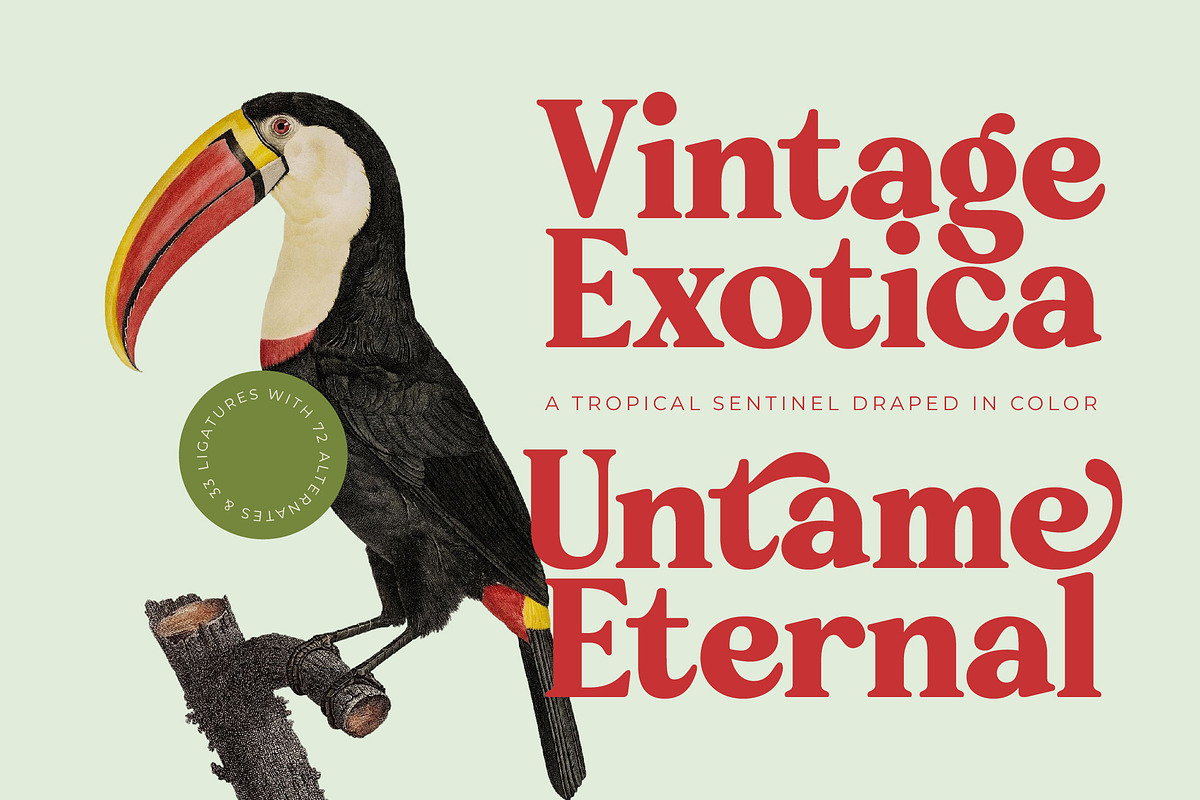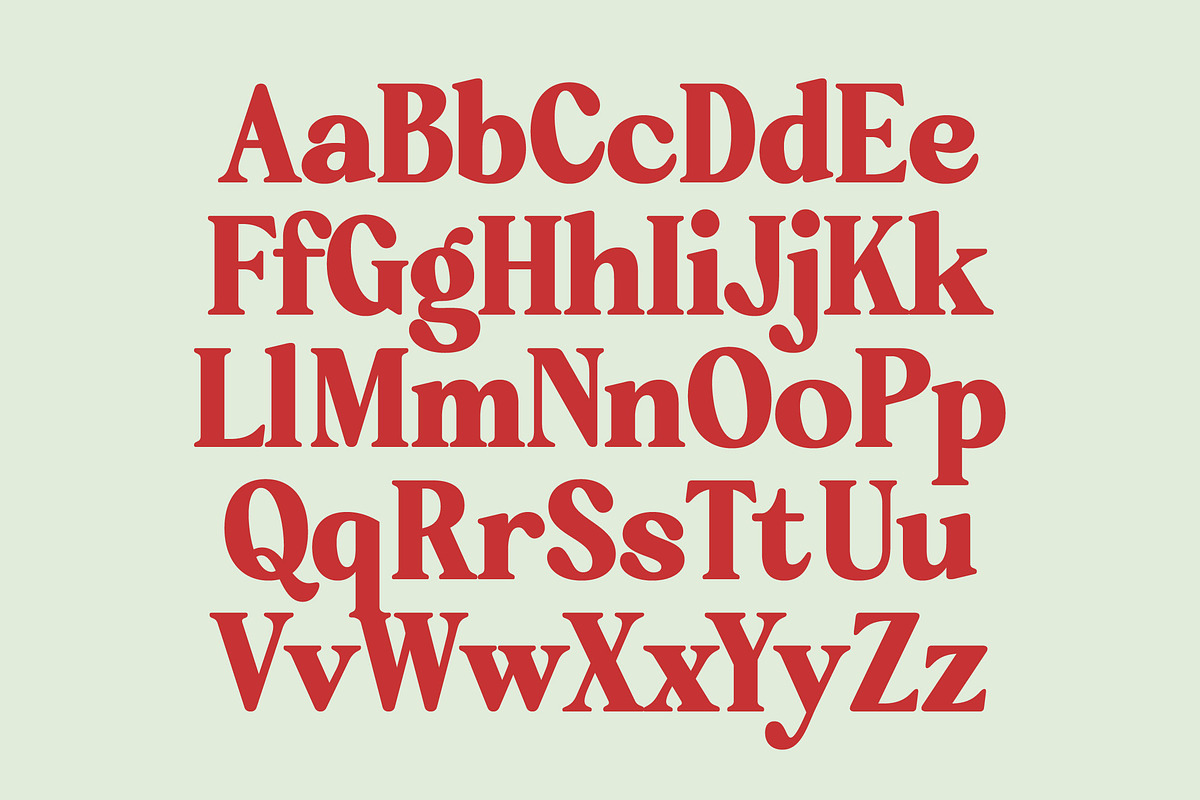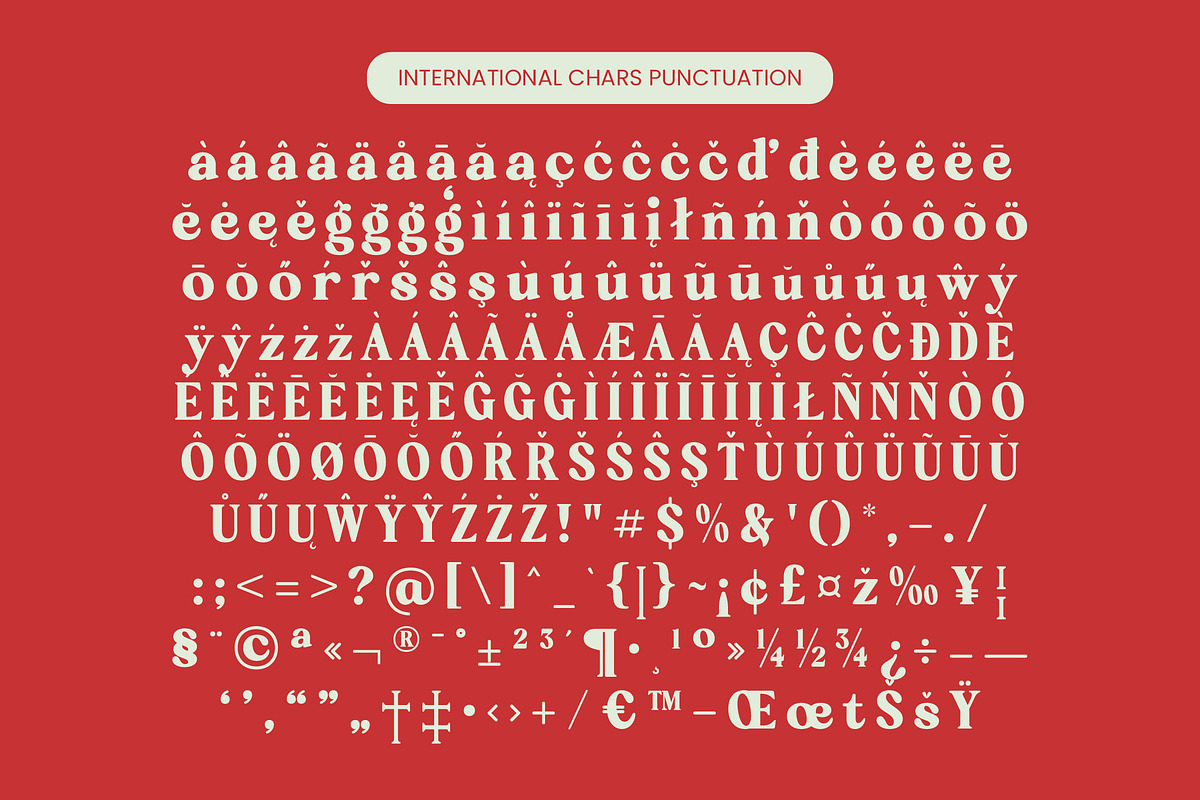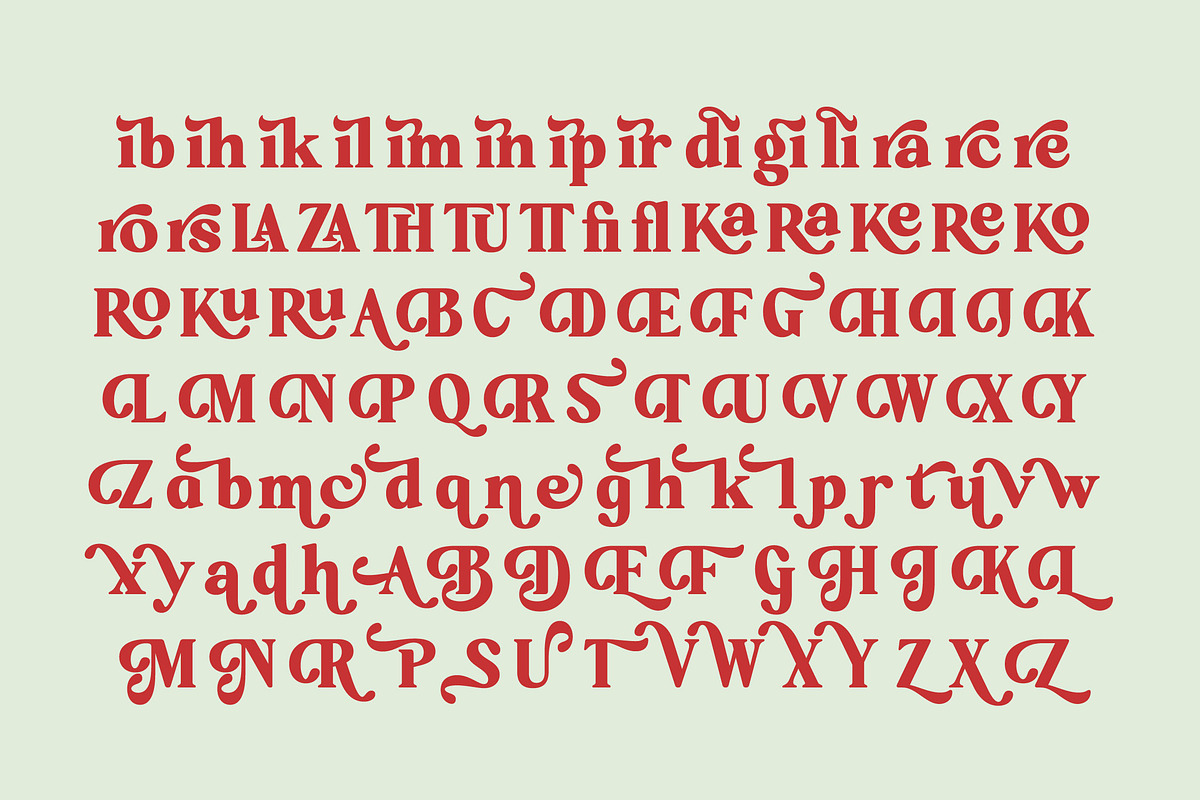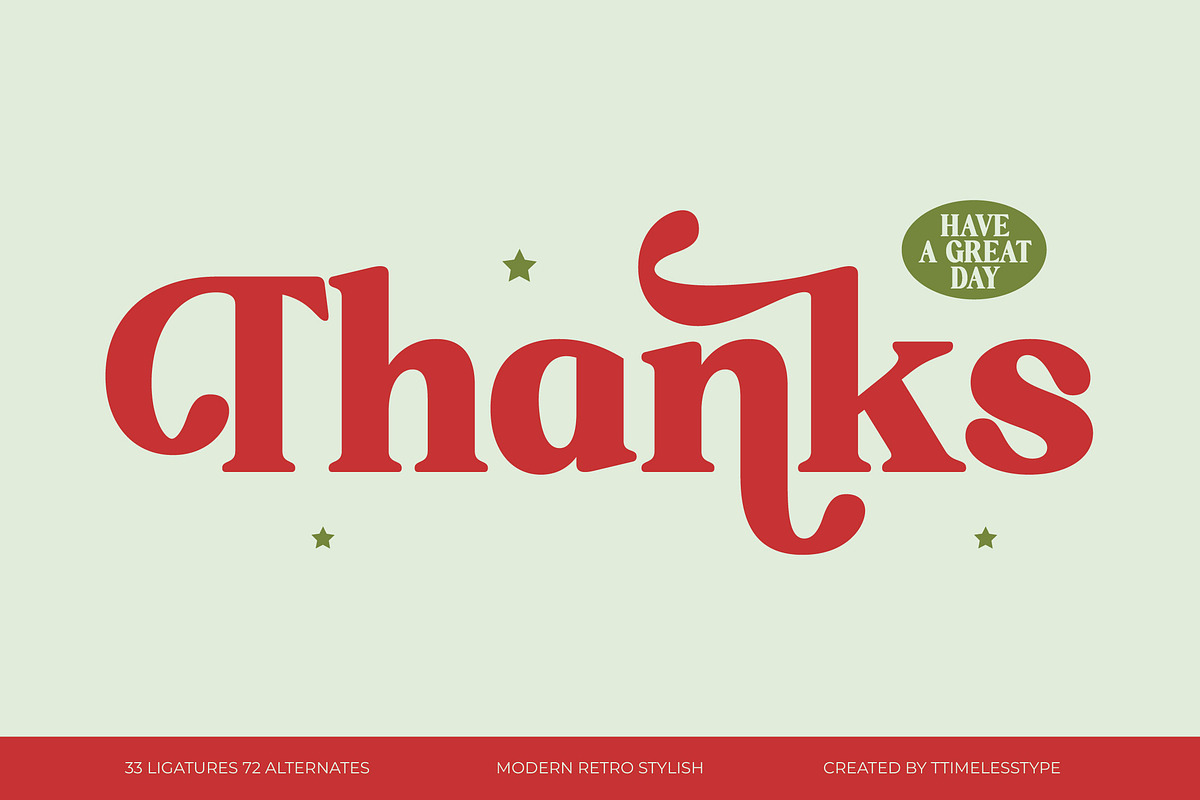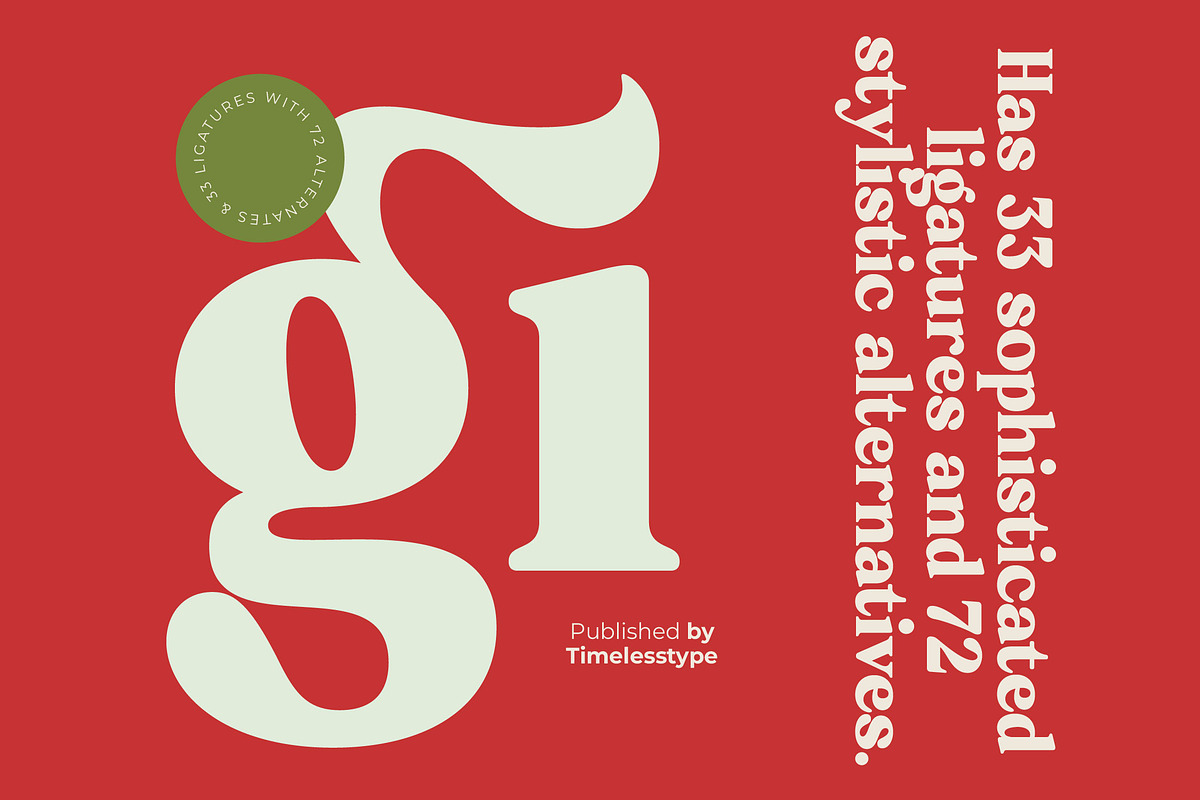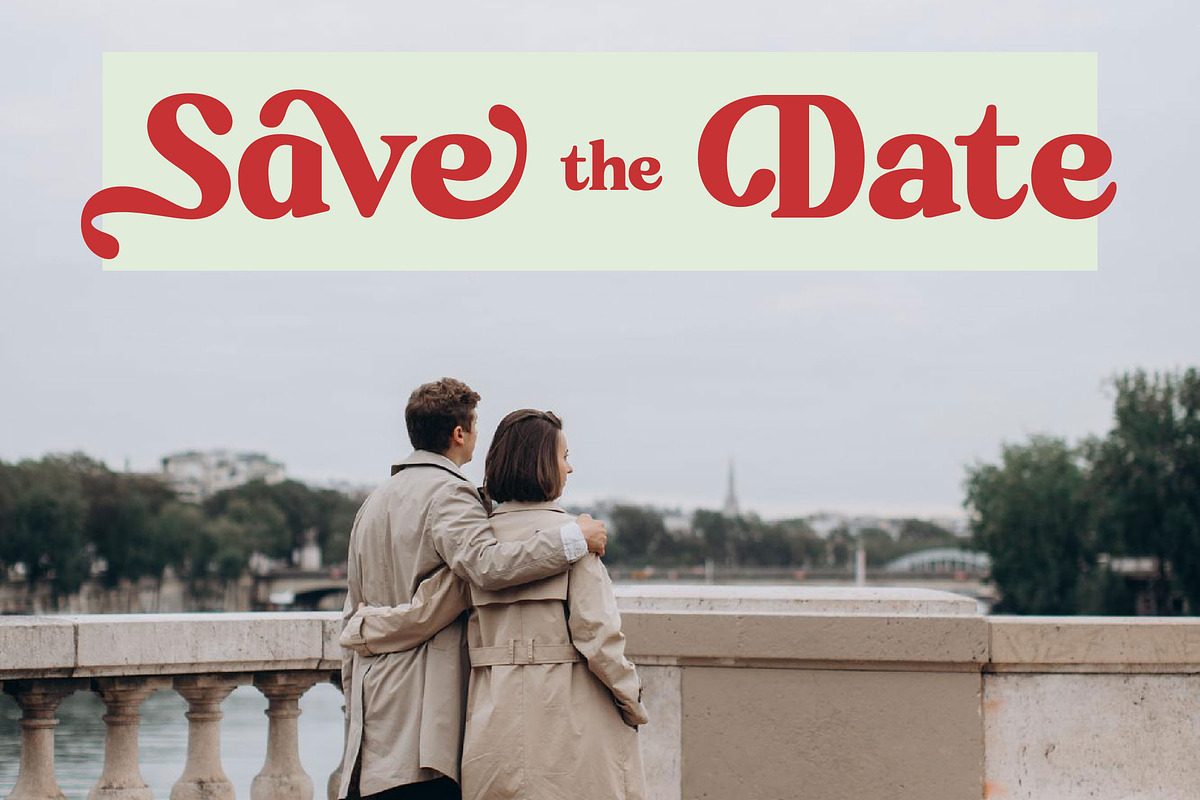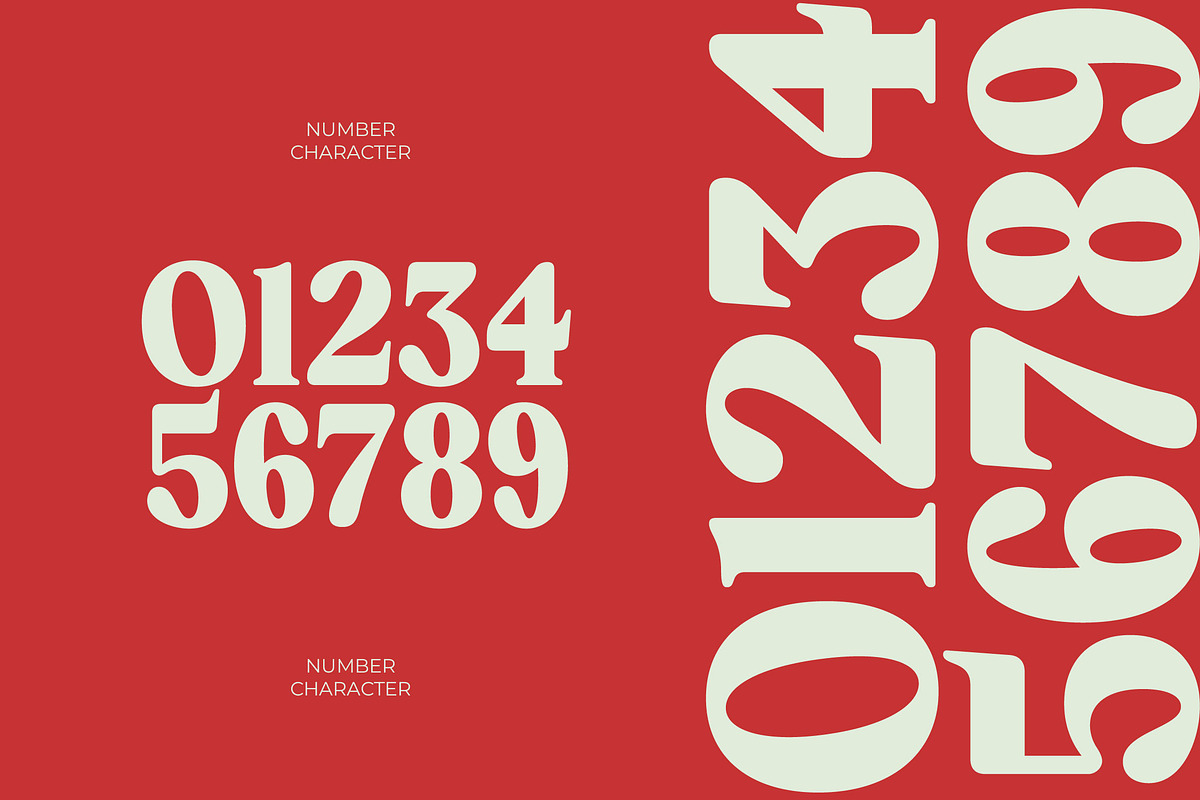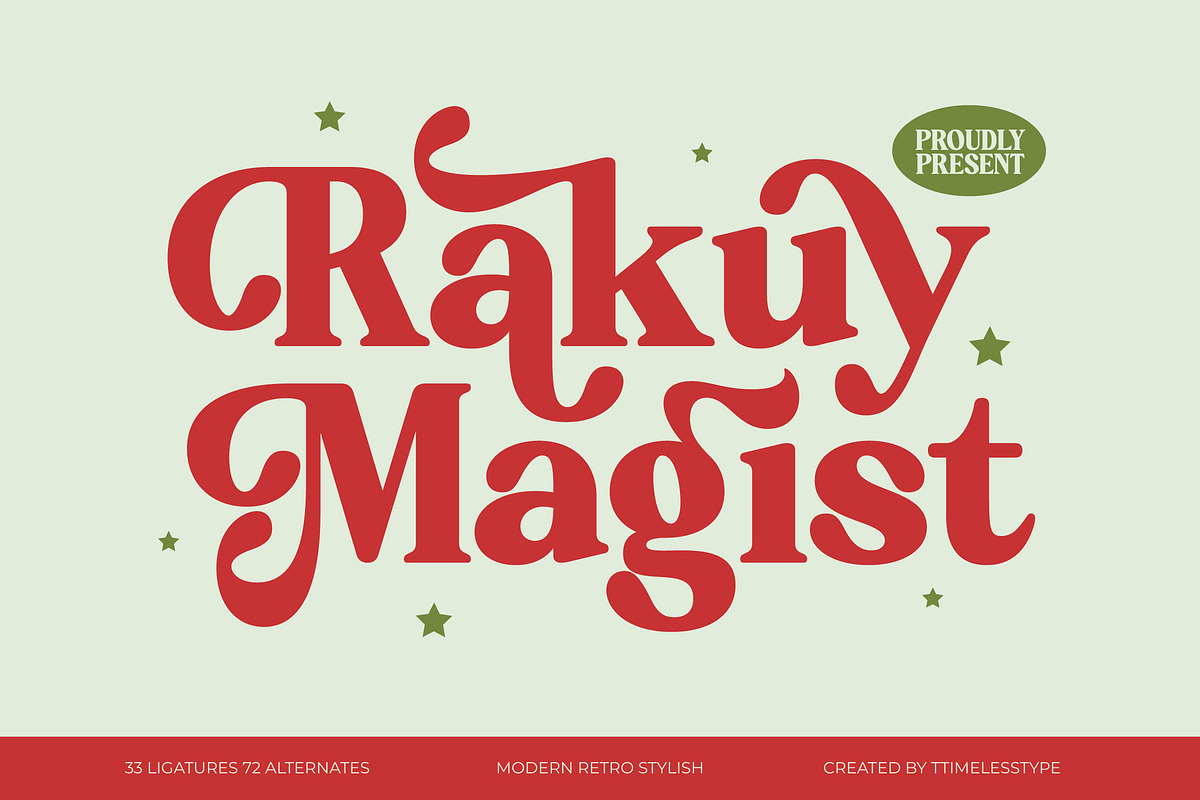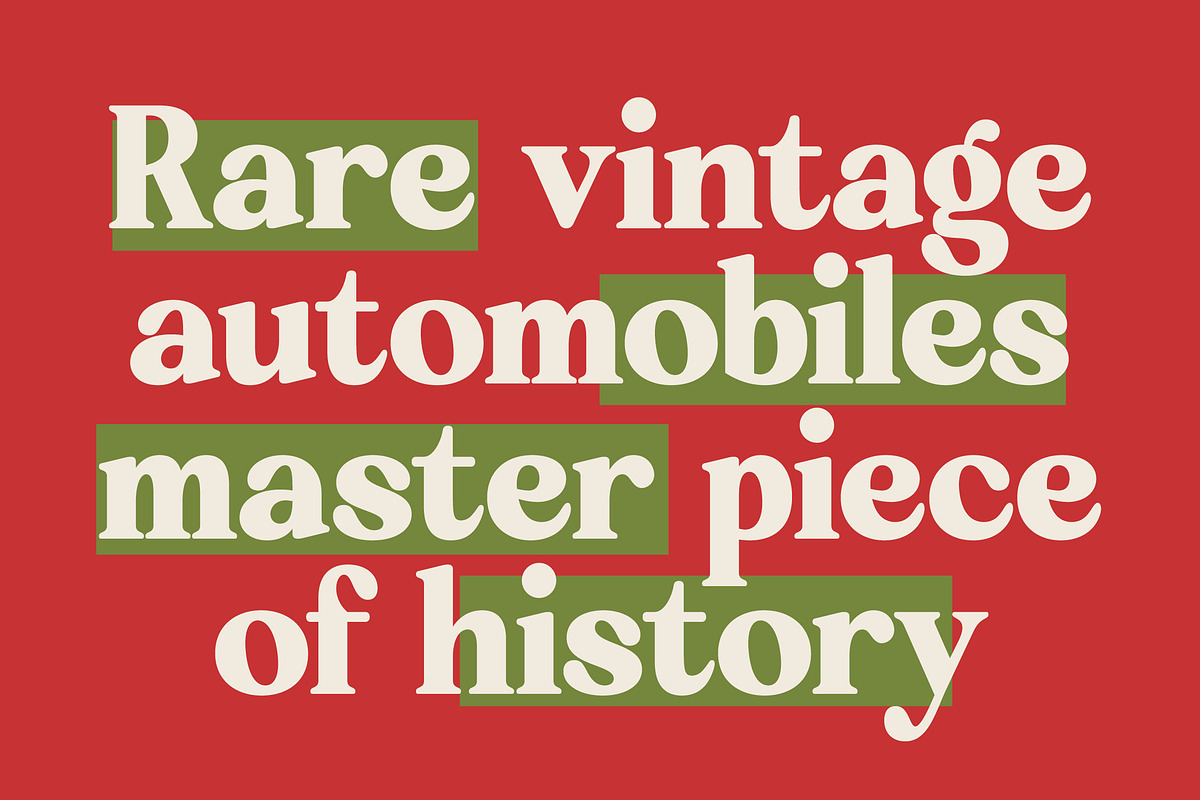
Rakuy Magist Modern Retro Serif
Experience the rhythmic elegance of Rakuy Magist, a typeface designed to dance across the page with unparalleled grace and sophistication. This font captures a unique balance between nostalgic charm and contemporary flair, making every word a visual masterpiece.
Inspired by the fluid curves of 1970s editorial design and the structured beauty of classic Roman letterforms, this collection brings a soulful narrative to your creative canvas. It evokes the feeling of a sun-drenched afternoon in a high-end vintage boutique.
As a modern serif display solution, it offers a level of luxury typography that commands attention while maintaining a soft, approachable edge. The high-contrast serif details ensure a premium feel, making it an essential editorial font for projects requiring a significant branding impact.
Perfectly aligned with the current modern serif trend, this typeface meets the demand for editorial display fonts that break away from the mundane. It is a prime example of character-driven typography that tells a story before a single word is even read.
This versatile tool is tailor-made for high-end logo design and comprehensive branding systems that need to stand out. Its aesthetic excellence shines in editorial layouts, luxury packaging, romantic wedding stationery, and fast-paced fashion lookbooks.
To provide ultimate creative freedom, the set includes 33 unique ligatures and 72 beautiful alternates alongside expressive swashes. Fully multilingual support and a wide range of international characters ensure your message reaches a global audience with ease.